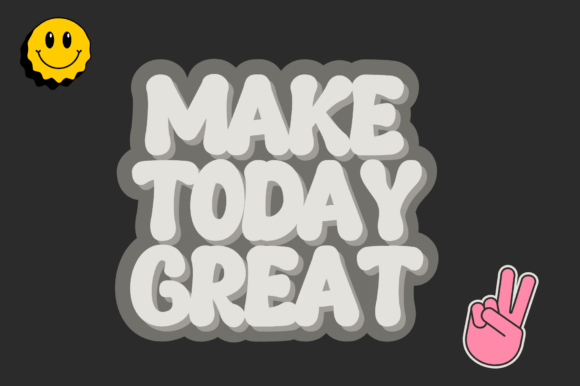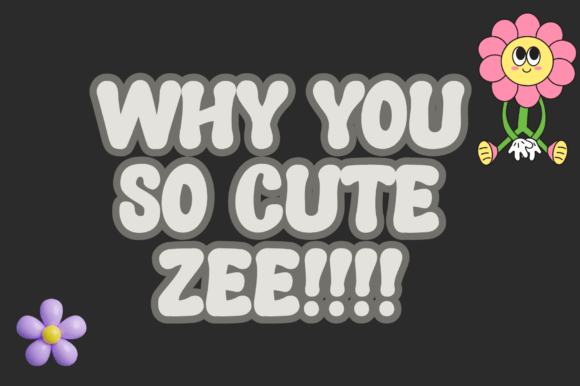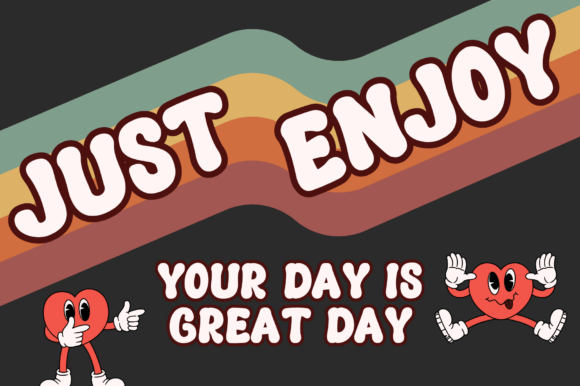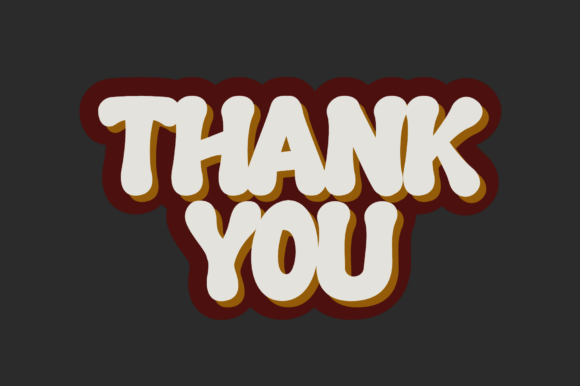
Introduction to Ceplok Groove Font
Ceplok Groove is a bold and playful typeface designed to bring a fun, retro vibe to your creative projects.
With its rounded edges and groovy, bubbly forms, this font is perfect for branding, social media posts, packaging, and any design that needs a cheerful and dynamic feel Inspired by funky 70s aesthetics, Ceplok Groove radiates positivity and energy, making it a go-to font for bold statements.
Key Features of Ceplok Groove Font
Why Choose Ceplok Groove Font?